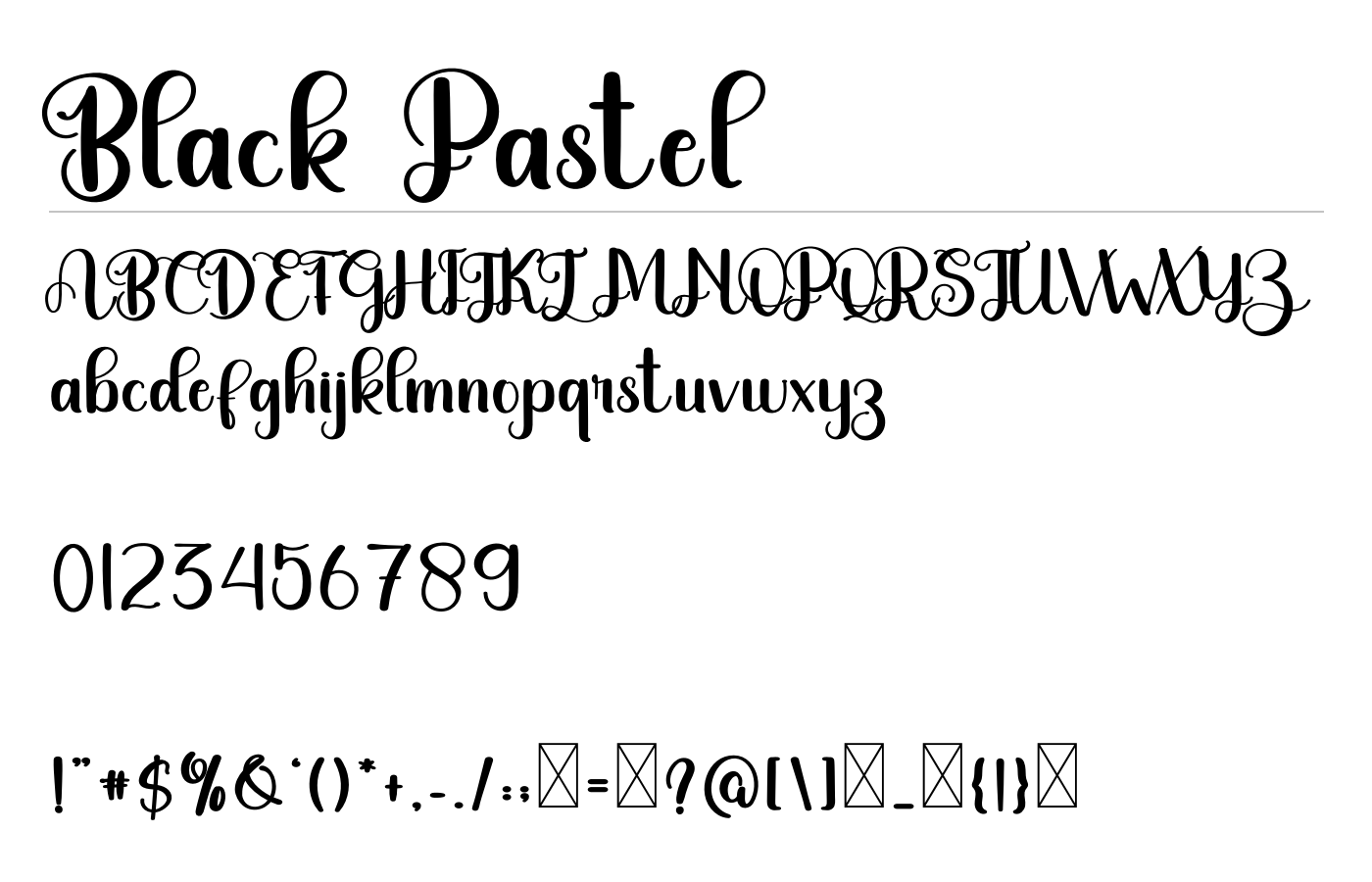
Black Pastel is a playful and charming script font featuring a bold weight and generous curves with decorative swashes on uppercase letters, giving it an inviting and whimsical feel. Its smooth, rounded letterforms and moderate contrast make it ideal for branding, invitations, and creative projects that seek a friendly yet stylish appearance. This font works best in display use where its lively character can truly shine.
Black Pastel Font
About Black Pastel Font